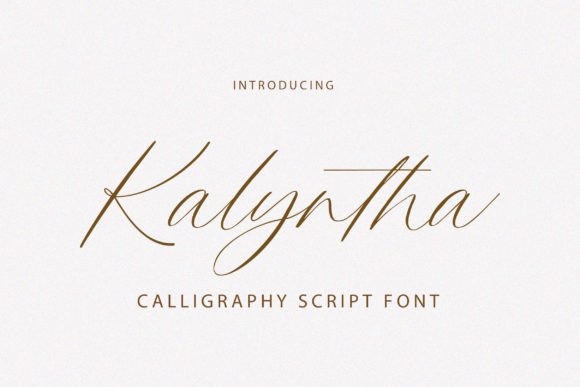
Introducing Kalyntha Font, the epitome of elegance and grace in the world of script fonts. Created by Bellinghamtype, this exquisite Serenity script font is specifically designed for those seeking perfection in their designs.
With its flowing curves and graceful strokes, Kalyntha draws inspiration from classic calligraphy, breathing life into every letter and creating a mesmerizing visual experience. Its captivating charm is sure to leave a lasting impression on anyone who encounters it.
Are you planning a luxurious wedding? Look no further, as Kalyntha is the font for wedding invites. Its delicate serifs and intricate details exude a sense of timeless beauty, making it the perfect choice to set the tone for your special day. Your guests will be captivated by the sheer elegance of your invitations, setting the stage for a truly unforgettable celebration.
But don't limit yourself to weddings alone. Kalyntha's versatility knows no bounds. Elevate your branding and corporate identity with this font that effortlessly exudes sophistication. Whether it's a high-end fashion label, a luxury hotel, or a premium cosmetics brand, Kalyntha adds a touch of class and refinement that is hard to ignore.
What sets Kalyntha apart is its PUA encoding, allowing you to effortlessly access all glyphs and swashes. This means that you have the freedom to explore and experiment with various letter combinations, adding your own unique flair to your designs. Let your creativity soar as you effortlessly create stunning logos, headlines, and social media graphics that grab attention and leave a lasting impact.
Kalyntha Font is not just a typeface; it's an experience. It evokes emotions of elegance, sophistication, and timelessness. Its beauty lies in its ability to transform any design into a work of art that demands attention and admiration.